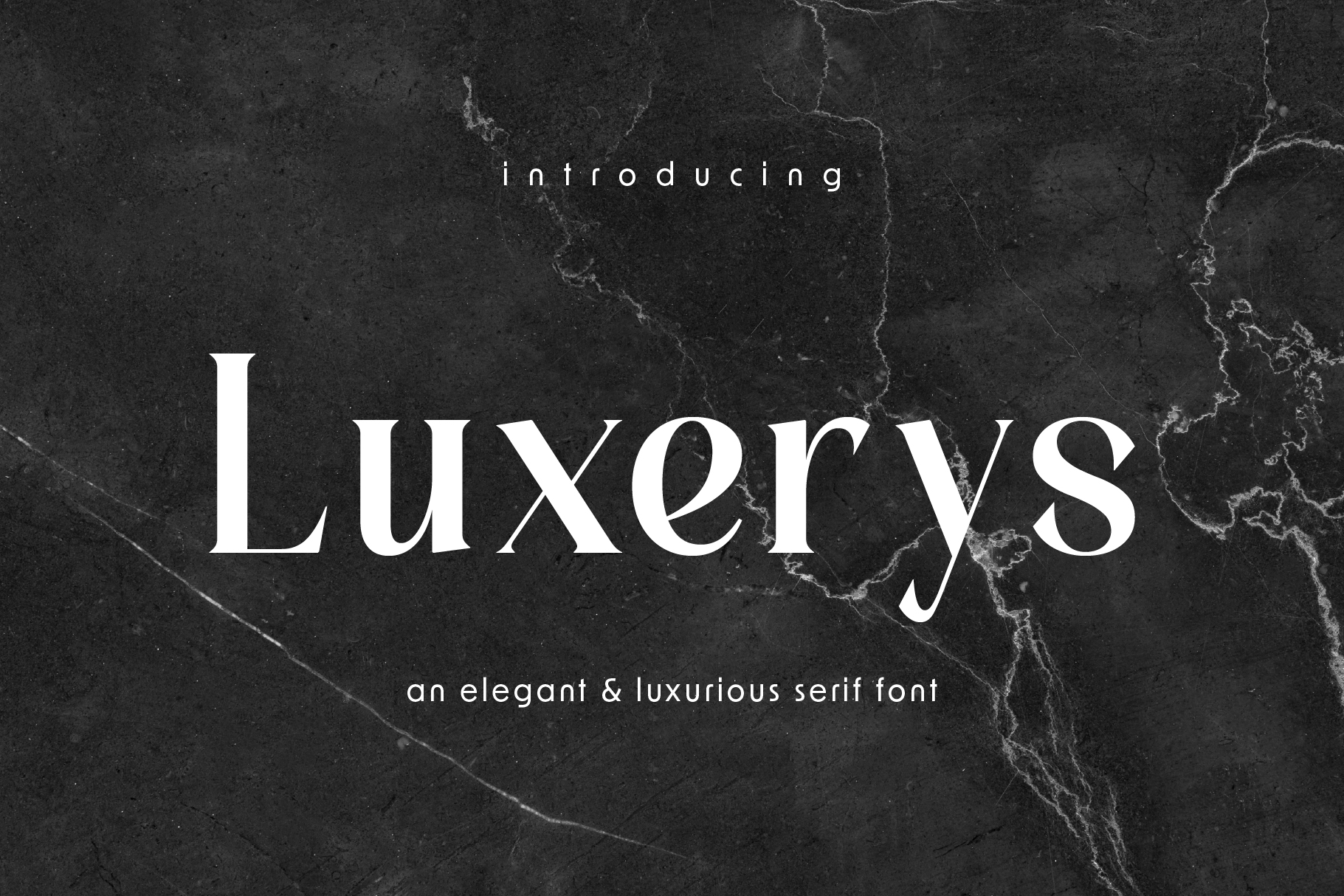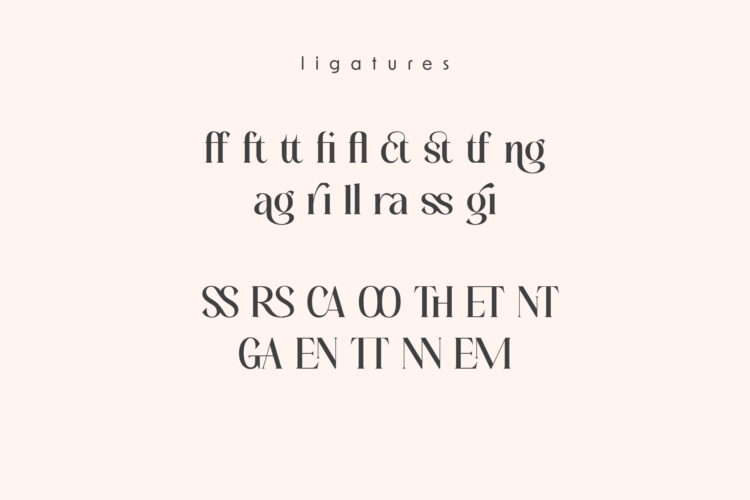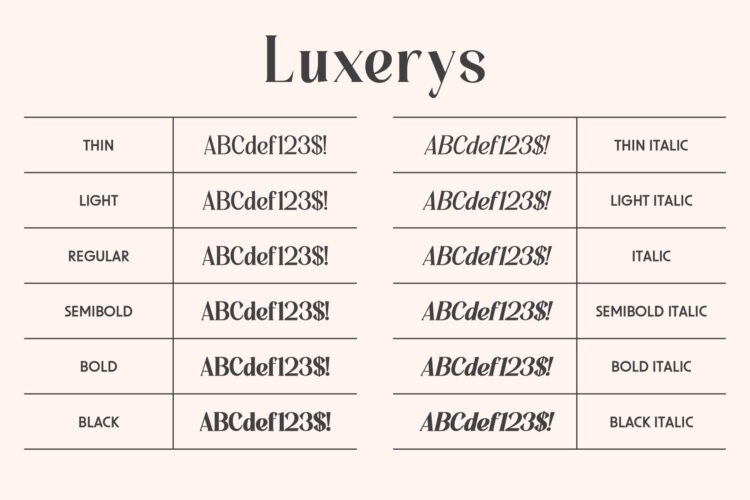
Introducing Luxerys. It is a classic serif font, and it features smooth, elegant curves. Consequently, your designs get a refined and luxurious look. For example, you can use it for wedding invites, fashion magazines, jewelry catalogs, or beauty‑brand projects.
Moreover, it includes several weights and an italic style. Therefore, you get freedom to create unique layouts. Each character is carefully crafted for readability and beauty. In addition, it supports uppercase and lowercase letters, numbers, basic punctuation, and ligatures.